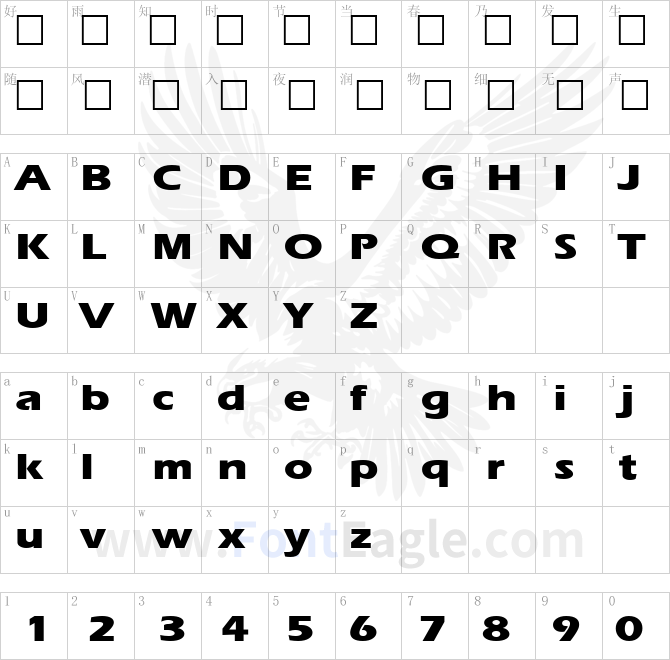
- Font name:ErgoeExtraboldExpanded
- Font Subfamily ID:Weatherly Systems, Inc. ErgoeExtraboldExpanded Regular
- Font Full Name:ErgoeExtraboldExpanded Regular
- Postscript:ErgoeExtraboldExpanded